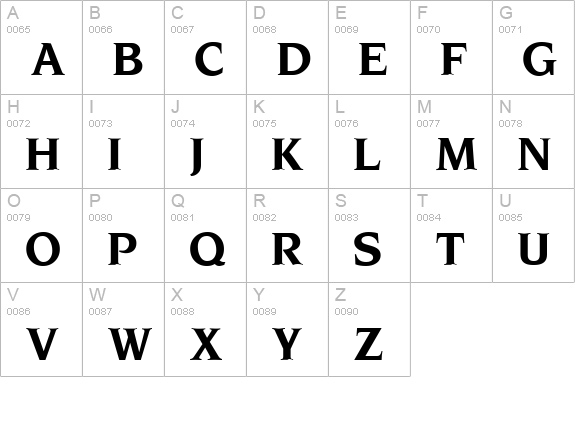
Novarese Bold is a strong, high-contrast variant in the Novarese typeface family \xE2\x80\x94 well suited to headlines, attention-grabbing titles, and strong calls-to-action.
Novarese Bold is a striking and versatile typeface that exudes confidence and modernity. With its bold strokes and clean lines, this font commands attention and makes a bold statement in any design project. The strong, yet elegant, letterforms of Novarese Bold are perfect for headlines, logos, and branding materials that demand a strong visual presence. The Novarese Bold font is not only visually appealing but also highly legible, making it a great choice for both print and digital applications. Its versatility allows it to be used in a variety of design projects, from posters and packaging to websites and social media graphics. Best of all, Novarese Bold is available for free download at FontsMarket.com. This means that you can easily add this stylish and impactful font to your design arsenal without breaking the bank. So why wait? Download Novarese Bold today and elevate your designs with this powerful and dynamic typeface.